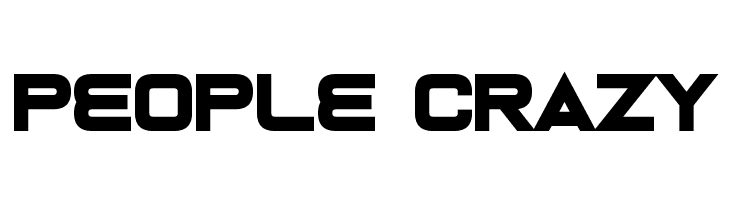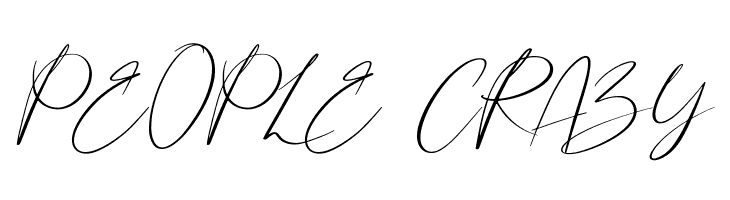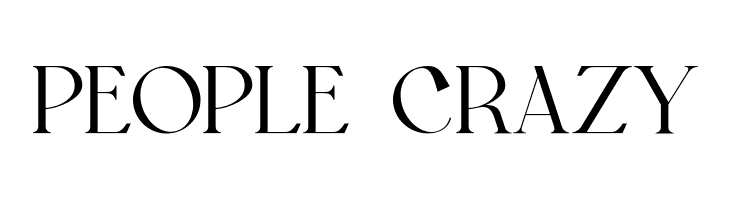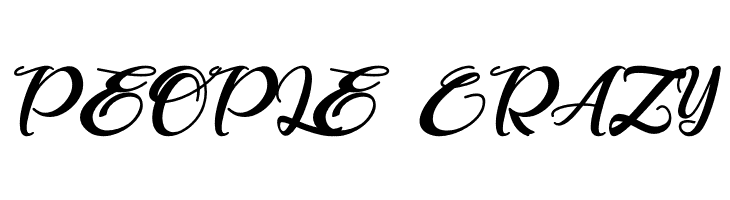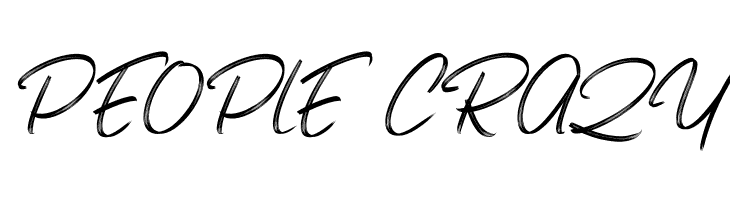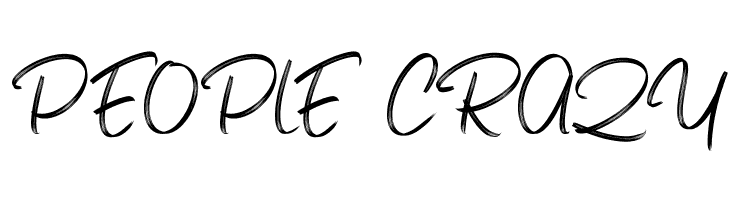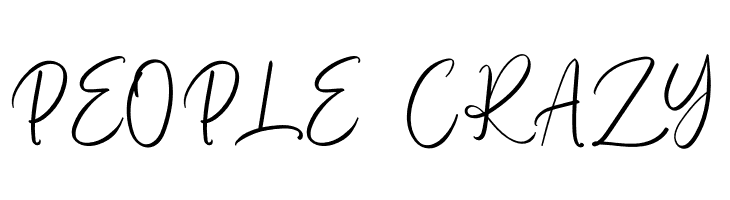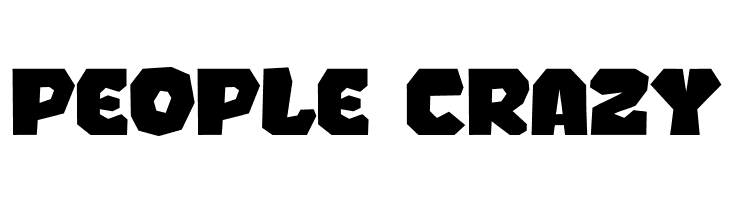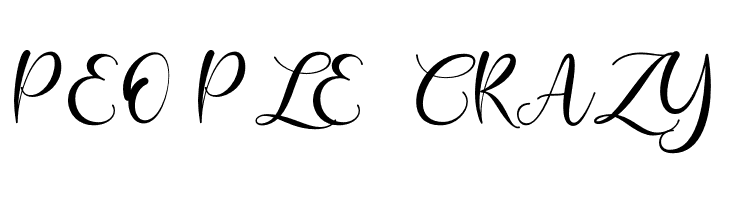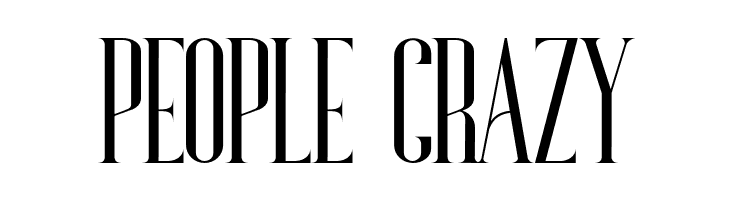
A bold, hand-drawn font with rugged, uneven strokes and a vintage feel.
A bold, decorative font with a skeletal motif, perfect for dramatic themes.
An artistic font combining skeletal elements with roses for a bold, decorative look.
A playful, quirky handwritten font with thin, uneven strokes.
A bold, dynamic script font with flowing, cursive letterforms.
A bold, textured font with a rugged, distressed appearance.
A bold, decorative font with a distressed, grunge texture, ideal for thematic designs.
A playful, bone-themed decorative font perfect for spooky designs.
A bone-inspired font with jagged, hand-drawn strokes for a bold, edgy look.
A decorative font with a bone-like, skeletal design.
Hand-drawn, food-themed cartoon illustrations replace standard glyphs.
A high-contrast serif font with elegant, modern design elements.
A bold, playful handwritten font with rounded edges and a casual style.
A playful, casual handwritten font with smooth, flowing lines.
A bold, expressive script font with dynamic curves and modern style.
A modern, elegant script font with flowing cursive letters and dramatic flourishes.
A decorative, modern calligraphy script with elegant swashes.
A dynamic, expressive handwritten font with fluid strokes and a brush-like texture.
A dynamic, cursive script font with flowing, slanted letters and lively contrast.
A dynamic and expressive script font with fluid, sweeping strokes.
An elegant, high-contrast font with elongated, narrow characters.
A bold, geometric 3D font with Art Deco influences and intricate patterns.
An elegant script font with flowing lines and classic calligraphic style.
A modern, geometric sans-serif font with tall, narrow characters and uniform stroke width.
A bold, modern sans-serif font with clean lines and uniform strokes.
A lively script font with fluid, connected strokes and a handwritten feel.
A geometric, outlined font with bold, artistic patterns.
A bold, geometric font with intricate patterns and Art Deco influences.
A graceful script font with flowing, cursive strokes and elegant curves.
A bold, geometric font with a modern and industrial aesthetic.
A bold, angular font with a modern, geometric style.
A high-contrast serif font with elegant, sharp serifs and a modern touch.
A bold, decorative font with high contrast and artistic flair.
A lively and elegant script font with smooth, flowing curves.
A playful handwritten font with a modern, casual style.